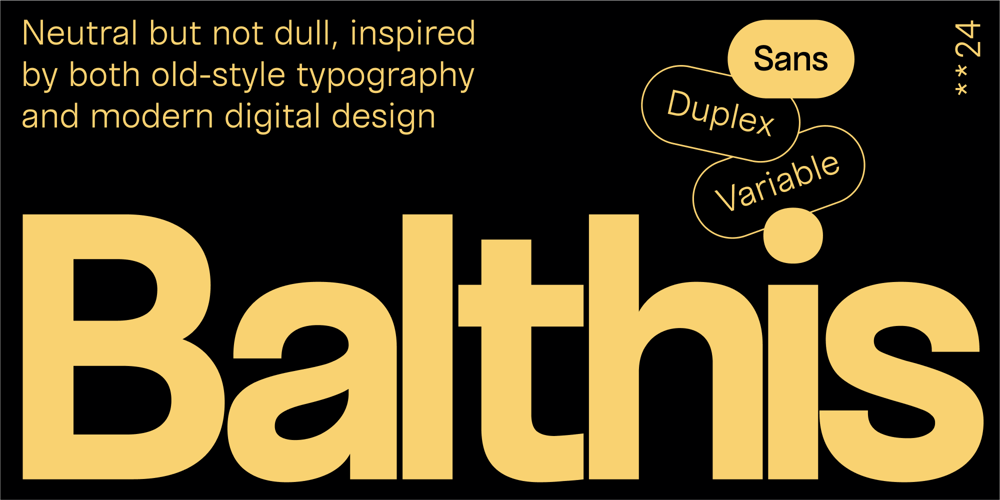
Balthis
Balthis font
Balthis Font Family was designed by Ksenia Belobrova and published by Ksenia Belobrova. Balthis contains 10 styles and family package options. Sans serif, inspired by both old Swiss typography and modern digital design. Designed with digital projects and interfaces in mind, Balthis is a duplex font, which provides consistency in width across all styles and simplifies the design and development process.